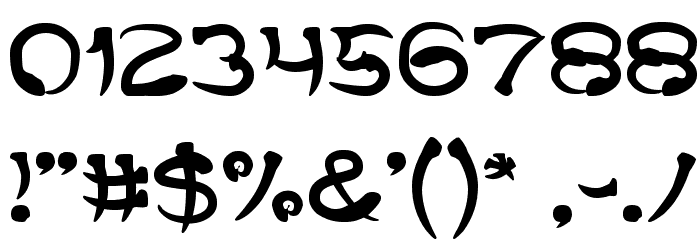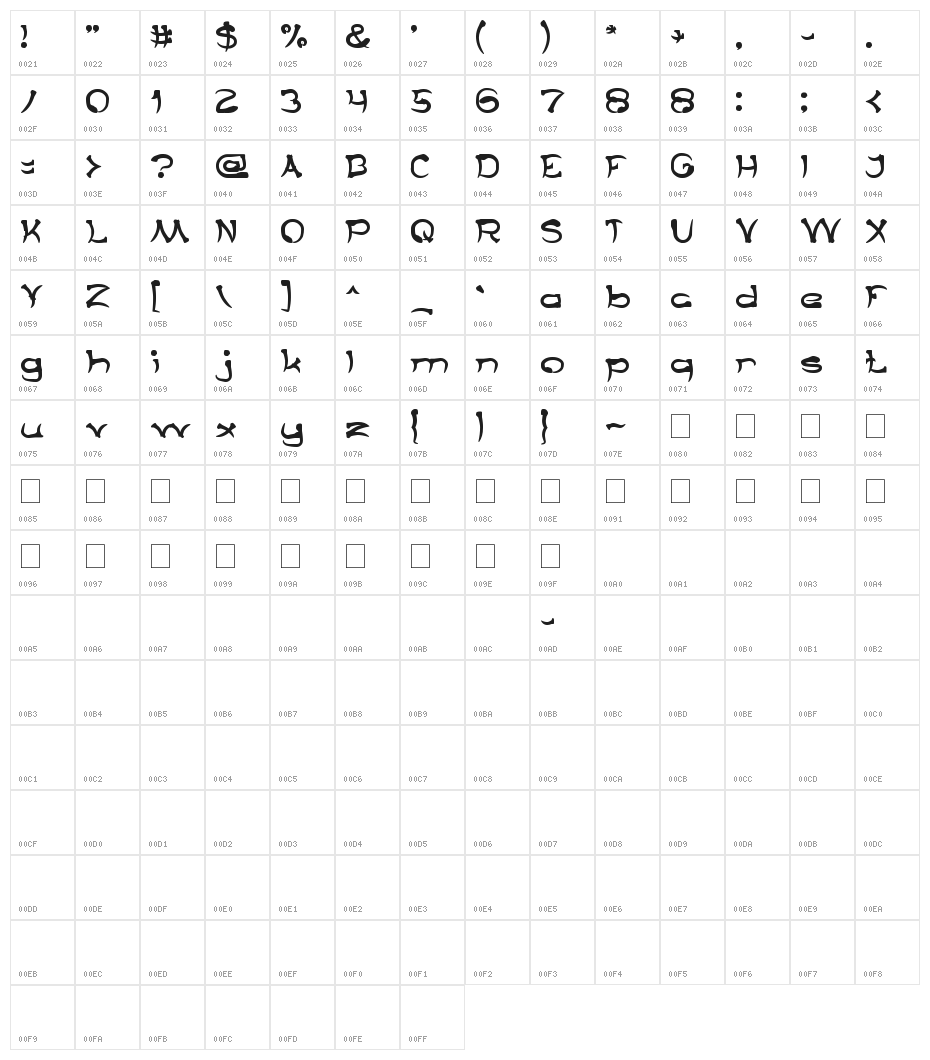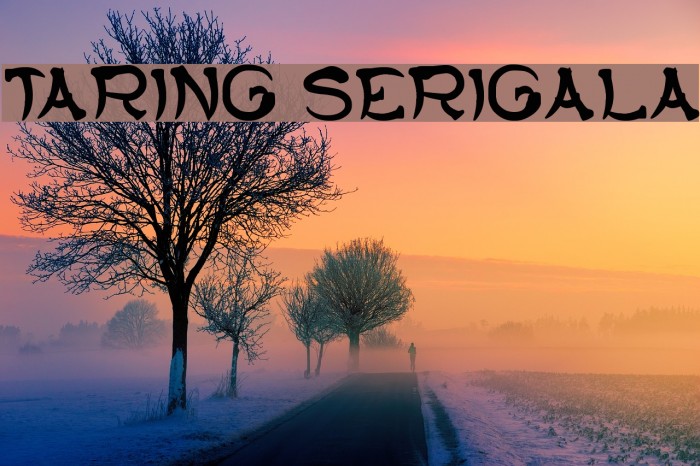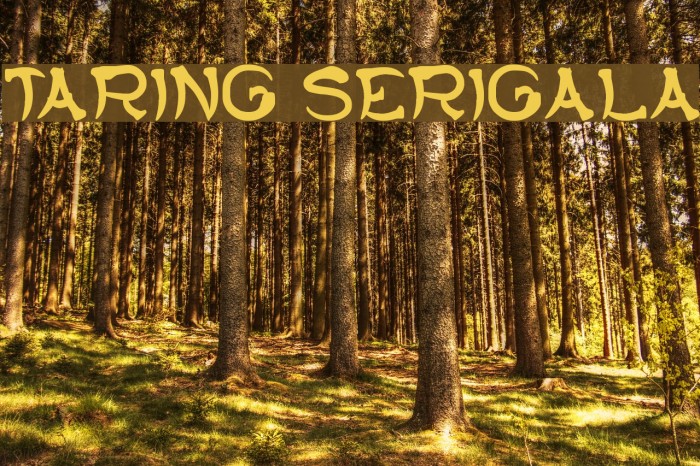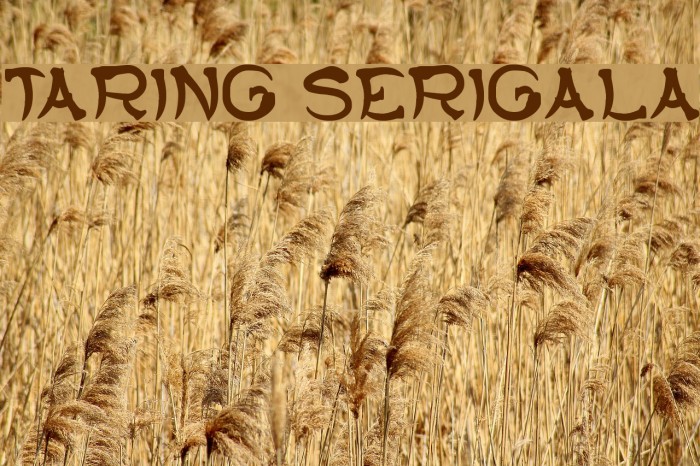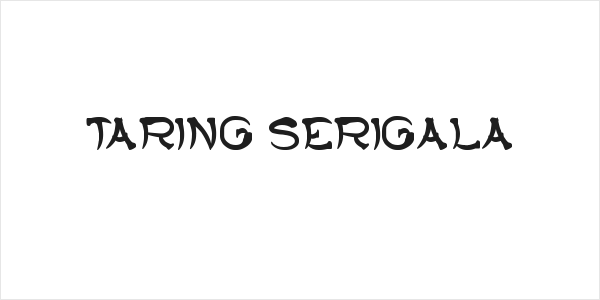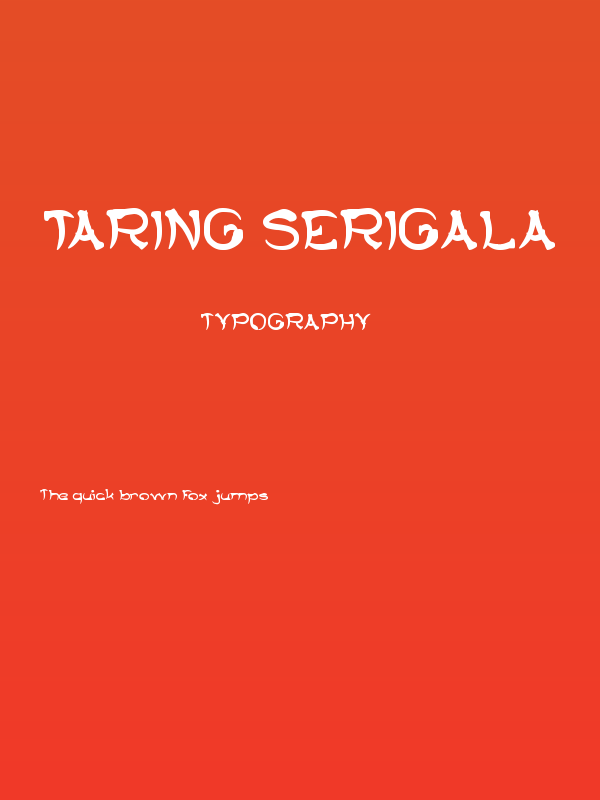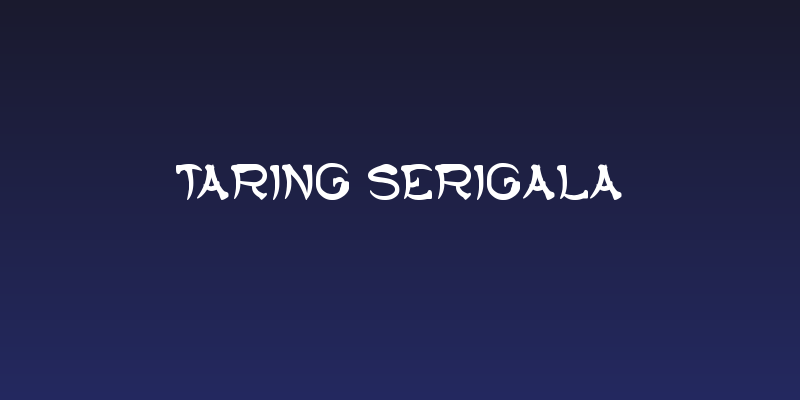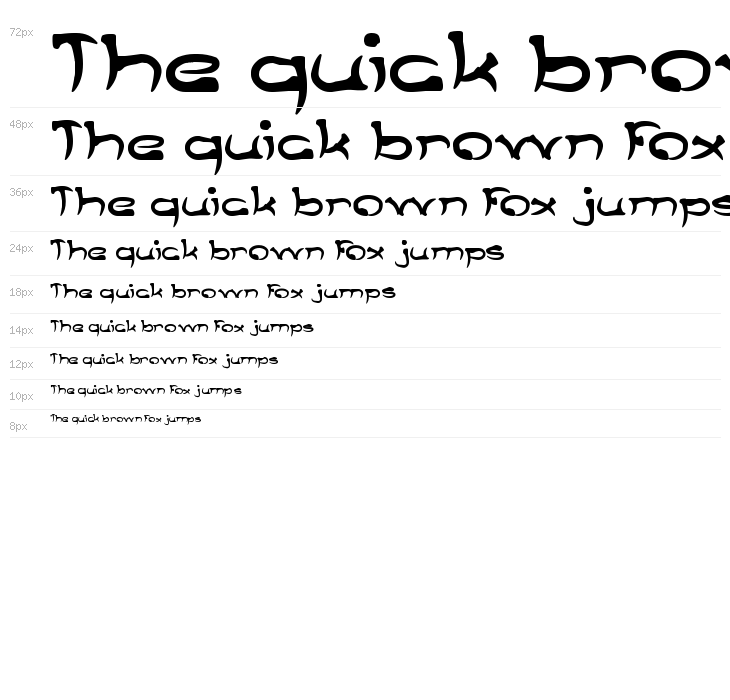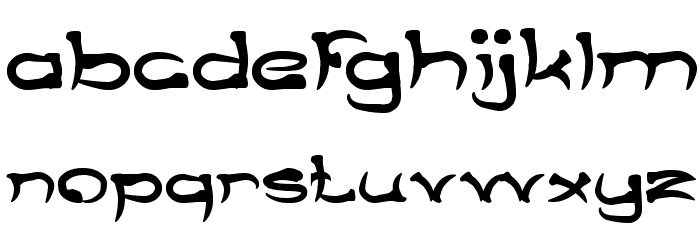
TARING SERIGALA Font
TARING SERIGALA Description
This font features a bold and dynamic style with a hand-drawn appearance. The characters exhibit a slightly irregular and organic form, giving them a unique and artistic flair. The strokes are thick and varied, with some letters having sharp, pointed edges while others are more rounded. This creates a sense of movement and energy throughout the text. The font maintains a consistent baseline, but the varying heights and widths of the letters add to its playful and creative nature. It is well-suited for projects that require a distinctive and eye-catching display.
| Overall Style | Artistic and Dynamic |
| Proposed Projects | Ideal for posters, album covers, artistic branding, and creative headlines. |